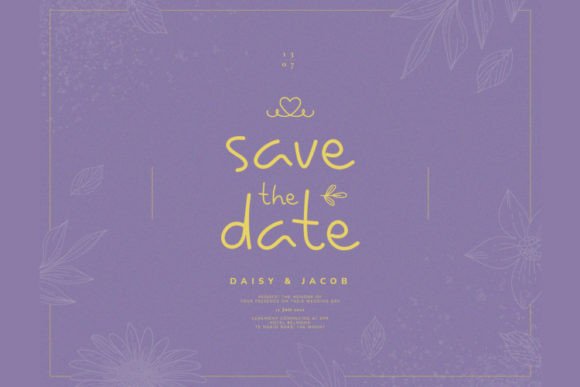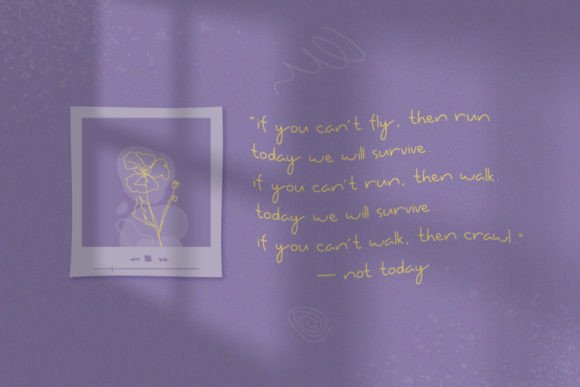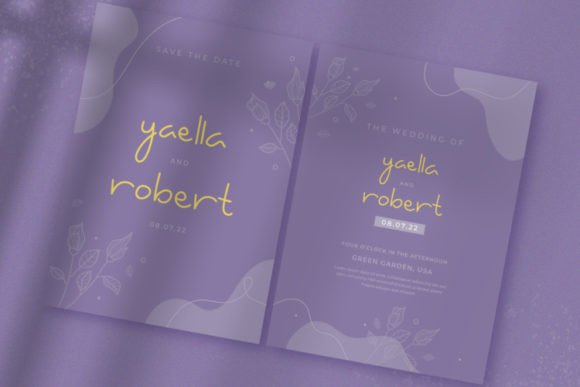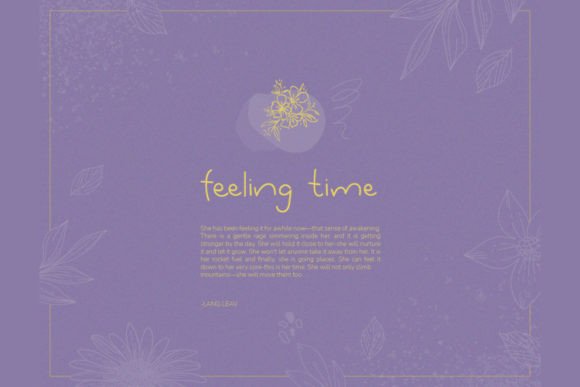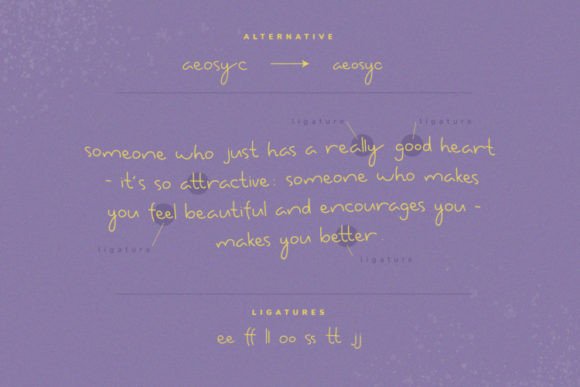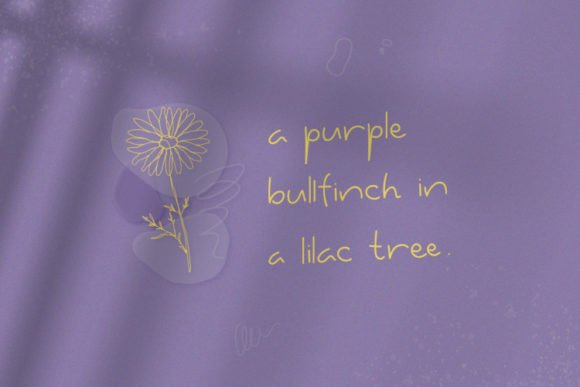
The Floynder Font: A Fun and Friendly Addition to Your Design Toolbox
I’ll never forget the time I was working on a project for a children’s birthday party, and I just couldn’t find the right font to match the playful vibe of the design. The client wanted something fun, friendly, and whimsical, but everything I tried seemed either too boring or too over-the-top. That’s when I stumbled upon the Floynder font, and it was love at first sight! 💕
Floynder is a fun and friendly handwritten font that’s perfect for brightening up any design. Whimsical and a bit quirky, this font is sure to add a touch of personality to your projects. In this article, I’ll share my honest review of Floynder, provide a practical guide on how to use it, and explore some similar fonts you might enjoy.
My Honest Review of Floynder
So, what do I love about Floynder? Here are a few things that make this font stand out:
- ✨ Unique and playful character set: Floynder has a wide range of characters that are sure to add some personality to your designs.
- ✅ Easy to read: Despite its playful nature, Floynder is surprisingly easy to read, even at smaller font sizes.
- 💖 Versatile: This font works well for a variety of design projects, from invitations and party decor to social media graphics and blog posts.
Of course, no font is perfect, and Floynder does have a few small quirks:
- 🤔 Limited formal applications: Due to its playful nature, Floynder may not be the best choice for more formal designs, such as business reports or academic papers.
- ⚠️ Some glyphs may require adjustment: Depending on the design, you may need to adjust some of the glyphs to get the perfect fit.
The Story Behind Floynder
Floynder was designed with one goal in mind: to create a fun and friendly font that’s perfect for creative projects. The designer, a self-proclaimed font enthusiast, wanted to create a font that’s both playful and elegant. With its unique character set and whimsical feel, Floynder is sure to bring a smile to your face.
| What is Floynder? | Floynder is a fun and friendly handwritten font that’s perfect for creative projects. |
Overall, Floynder is a fantastic addition to any design toolbox. Its unique character set, playful vibe, and versatility make it perfect for a wide range of creative projects. So why not give it a try and see what amazing designs you can create?